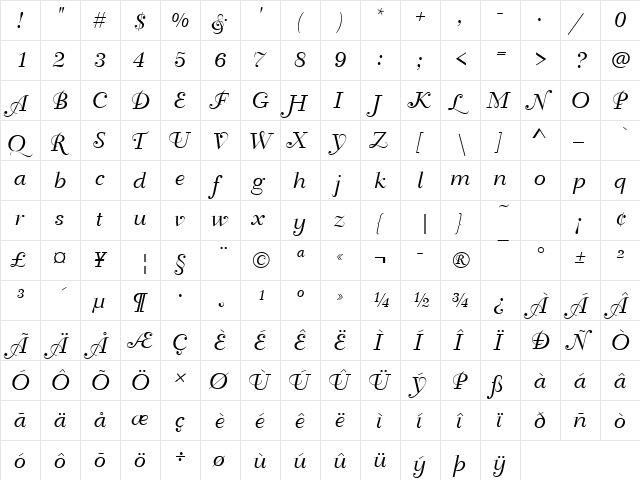
Splendid Regular Font Preview
Splendid Regular
Splendid Regular Font Details
Design Context for Splendid Typeface
Splendid takes a measured approach to typography — its balanced proportions and neutral character make it a reliable workhorse for both digital and print work.